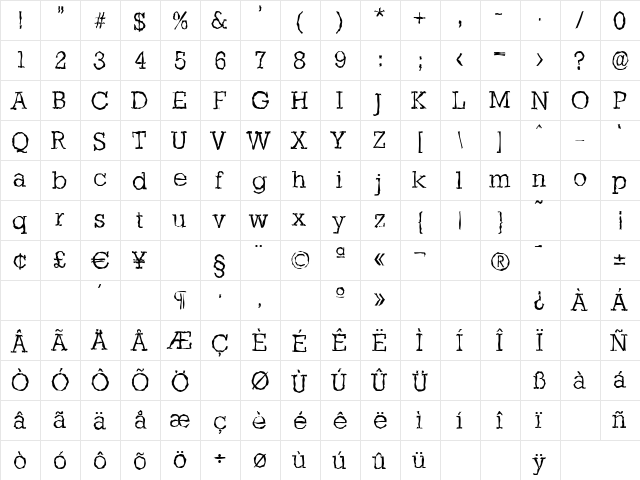
StaffordRandom-Light Regular
Design Context for StaffordRandom-Light Typeface
StaffordRandom-Light is a composed and adaptable typeface that performs quietly and consistently across a wide range of design contexts. The delicate stroke weight brings airiness and refinement to layouts.